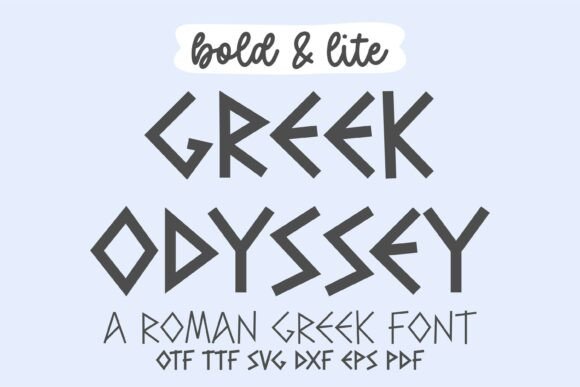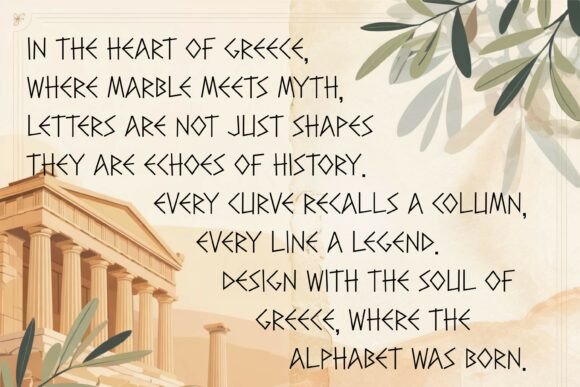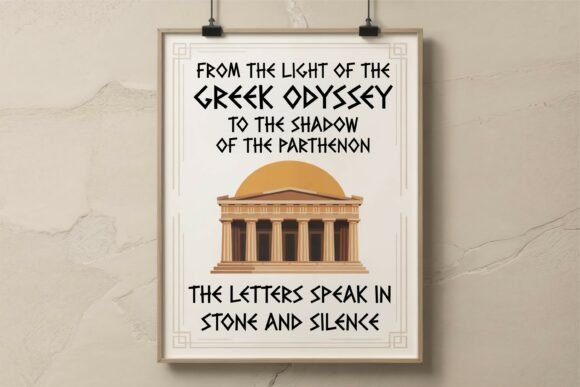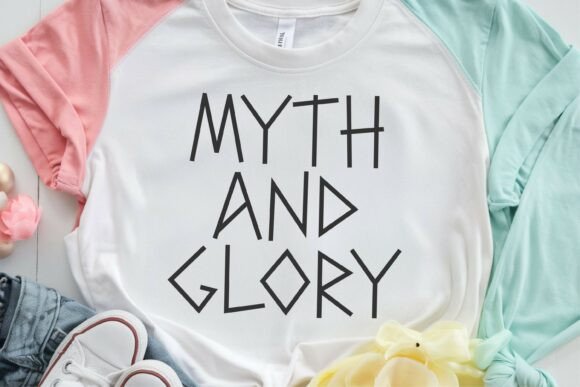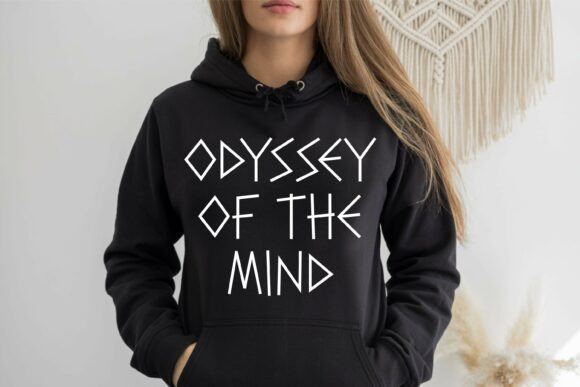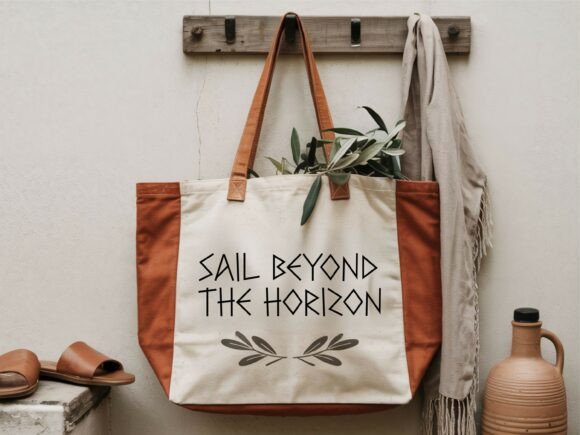
Greek Odyssey Font
Greek Odyssey font is a Roman Greek-inspired pinnacle of elegance and classic sophistication. With its assertive, geometric letterforms, the texture of this typeface paints vivid images of Grecian columns and immaculate marble sculptures. It makes a striking choice for achieving a blend of historic character and enduring appeal in your design projects.
With both Bold and Lite styles at your fingertips, the Greek Odyssey font offers a diversity of expressions, whether you seek a potent statement or restrained elegance. From fashion line branding to poster designs, from romantic wedding invitations to insightful educational materials, the adaptability of this font is its hallmark.
Every character in the Greek Odyssey font is meticulously crafted to enhance readability without compromising on style, ensuring your content is always the centerpiece. Alongside the standard uppercase and lowercase letters, numbers, and punctuation, it includes symbols, alternates, and multilingual support to handle a wide array of design tasks.
Harness the awe-inspiring power of the Greek Odyssey font and let every design rise above the ordinary.